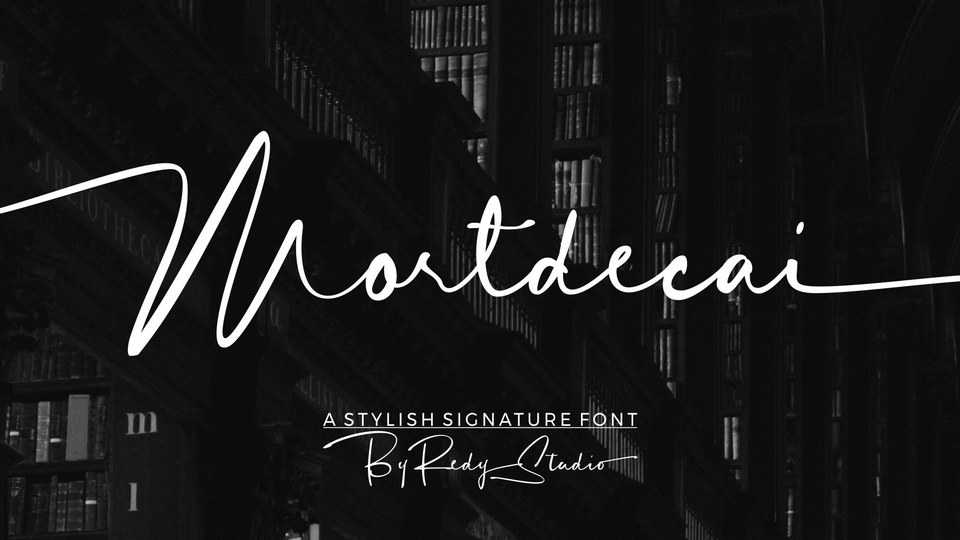
Mortdecai Luxury Signature Font › Fontesk – Download Grátis
Download Mortdecai font, a luxurious signature typeface that’s perfect for any branding, logo design, and much more. The unique structure of this typeface makes it highly usable, easy to work with, and elegant in all sizes.
Designer: Redy Studio